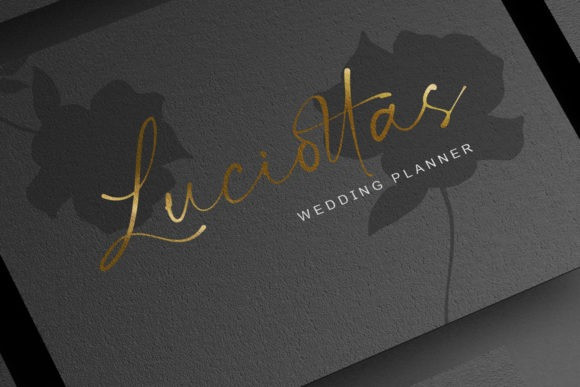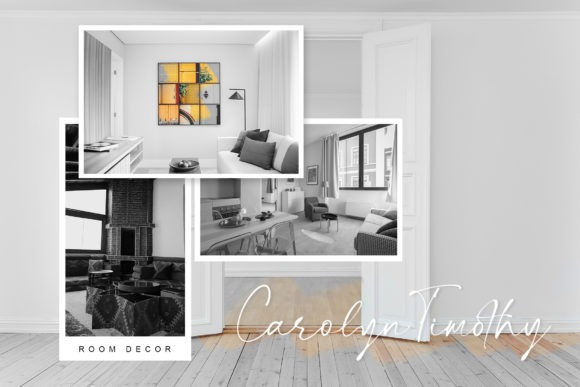
Alviena Handwriting Font
Alviena is a sweet and friendly display font. Its natural and unique style makes it incredibly fitting to a large pool of designs. The only limit is your imagination!